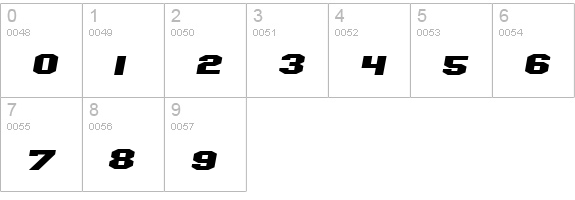
SF Hollywood Hills Extended Italic Font Details
SF Hollywood Hills Extended Italic is a distinctive, extended-width, italic variant in the SF typeface family \xE2\x80\x94 well suited to design and typography projects.
Introducing SF Hollywood Hills Extended Italic font, a captivating and stylish typeface that will transport you to the glitz and glamour of Hollywood. With its elongated and sleek letterforms, this font exudes elegance and sophistication, making it the perfect choice for any project that requires a touch of Hollywood magic. The SF Hollywood Hills Extended Italic font showcases a unique balance between modernity and classic Hollywood charm. Its italicized design adds a dynamic and energetic flair, capturing the essence of Hollywood's fast-paced lifestyle. Each letter is carefully crafted to embody the spirit of the silver screen, making it ideal for movie posters, magazine covers, branding materials, and more. But what makes SF Hollywood Hills Extended Italic font truly special is that it is freely available to download at FontsMarket.com. Yes, you read that right - absolutely free! This means that you can bring the glitz and glamour of Hollywood into your designs without any cost. Whether you're a professional designer or a hobbyist, this font provides endless possibilities for creativity and inspiration. So why wait? Download SF Hollywood Hills Extended Italic font today and let its captivating charm transform your designs into cinematic masterpieces. With its freely available download at FontsMarket.com, you have the power to create stunning visuals that will leave a lasting impression on your audience. Embrace the allure of Hollywood with this remarkable font and elevate your designs to new heights.